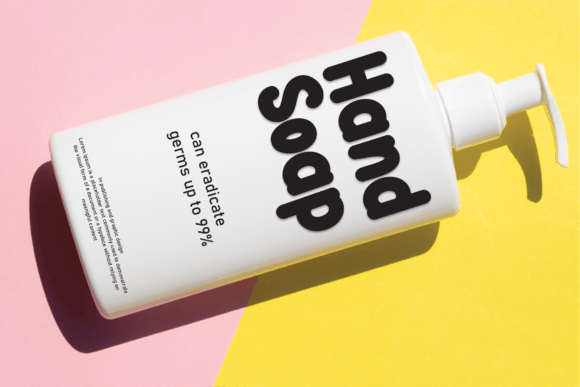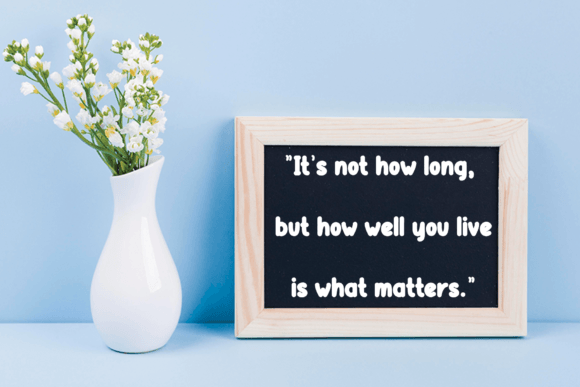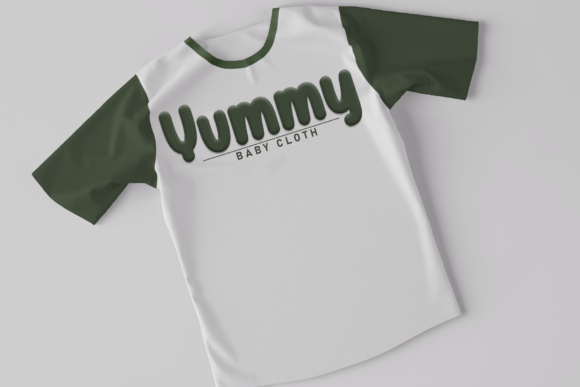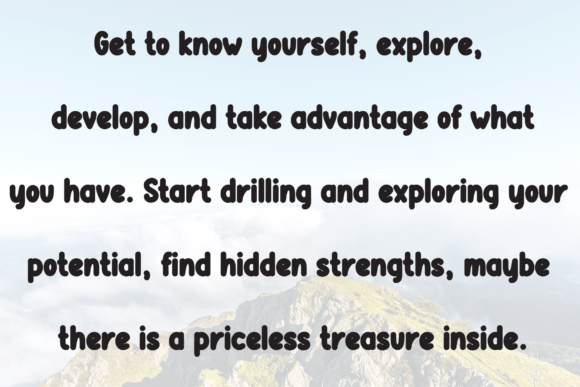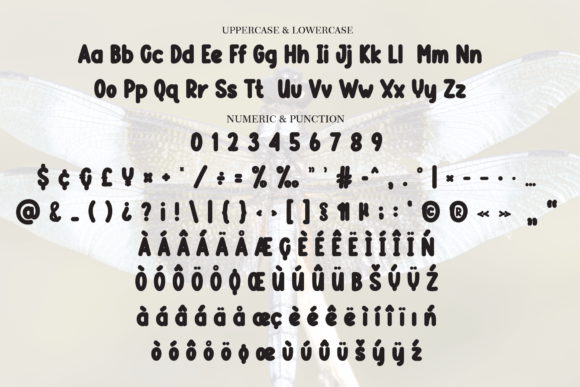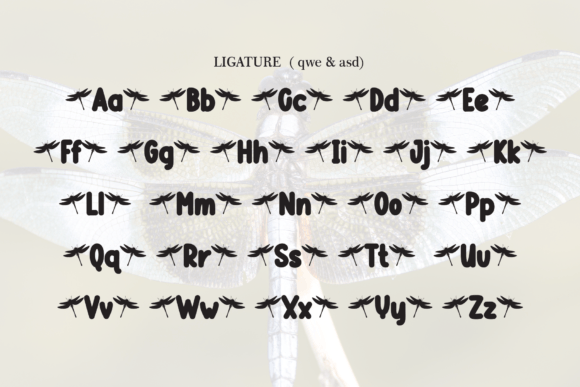
The Sweet Charm of Dragonfly Font: A Designer’s Delight
I still remember the time I was working on a wedding invitation project, and I just couldn’t find the right font to capture the sweet and intimate feel my client was looking for. I scrolled through page after page of font options, but nothing seemed quite right. That was until I stumbled upon the Dragonfly font. With its fresh and casual vibe, it was love at first sight! In this article, I’ll share my experience with this beautiful handwritten font, its features, and how to make the most of it in your designs.
An Honest Review of Dragonfly Font
- ✨ Sweet and Friendly Vibe: Dragonfly font has a warm, inviting feel that’s perfect for creating wedding invitations, greeting cards, or any design that needs a personal touch.
- ✅ Highly Readable: Despite its handwritten nature, Dragonfly is remarkably clear and easy to read, making it suitable for both digital and print designs.
- 💕 Versatile: This font can be used for a wide range of projects, from formal events to casual notes, and it always manages to add a touch of elegance.
While Dragonfly font is amazing, there are a few things to keep in mind:
- 🤔 Limited Formality: Due to its casual nature, Dragonfly might not be the best choice for very formal or corporate designs.
- ⚠️ Glyph Variety: While it has a good range of characters, some users might find the selection of glyphs and stylistic alternates a bit limited for very complex designs.
The Story Behind Dragonfly Font
While the exact origins of Dragonfly font are unclear, it’s easy to imagine it was created with the intention of capturing the carefree, joyful essence of a summer day. The designer likely wanted to craft a font that felt approachable, yet elegant—a font that could be used to express love, celebration, and happiness.
Q: Does Dragonfly font support OpenType features?
A: Yes, Dragonfly font supports OpenType features, including ligatures and stylistic alternates, which can add variety and interest to your designs.
Q: Can I use Dragonfly font for wedding invitations?
A: Dragonfly font is an excellent choice for wedding invitations. Its sweet and friendly vibe makes it perfect for capturing the joy and love of the occasion.